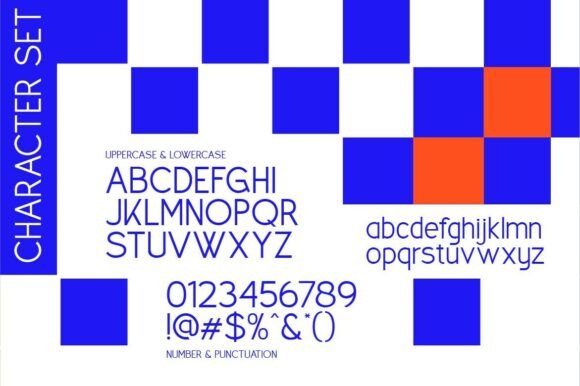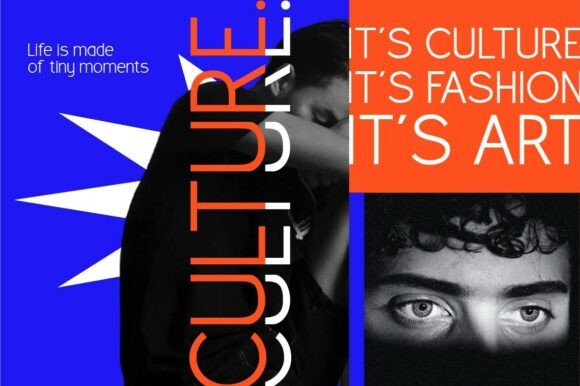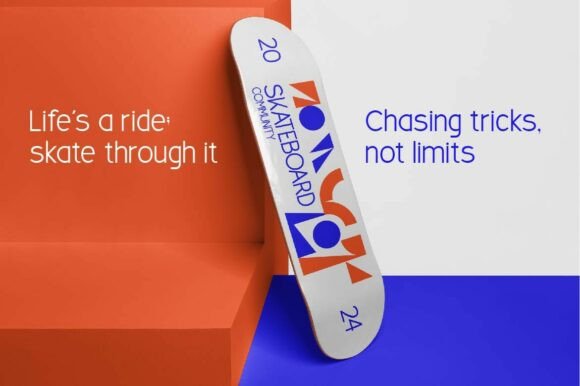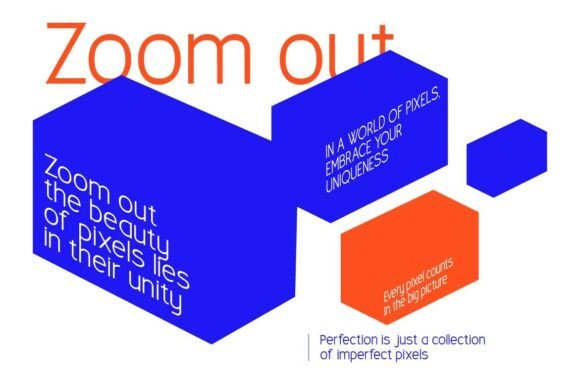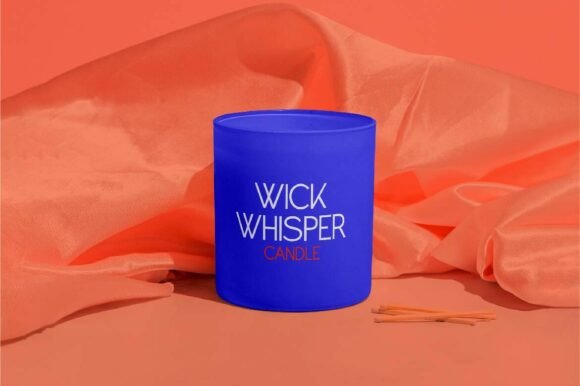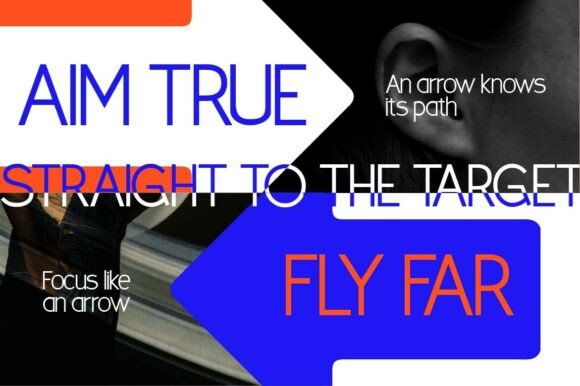
Introducing Groovern Font: The Epitome of Modern Sans-Serif Elegance
In the realm of typography, fonts play a pivotal role in conveying messages, evoking emotions, and establishing brand identities. Among the myriad of fonts available, Groovern stands out as a sleek and modern sans-serif display font that exudes a dynamic and stylish energy. Designed with a clean sans-serif structure and a contemporary feel, Groovern is poised to revolutionize the way designers and crafters approach their creative projects.
Design and Features of Groovern Font
Groovern’s design is characterized by its minimalist yet impactful letterform structure. The font boasts a clean sans-serif aesthetic, which lends it a modern and sophisticated appeal. This sleekness is not just visually pleasing but also highly versatile, making Groovern an excellent choice for a wide range of applications. Whether it’s for music or fashion branding aiming to make a stylish statement, social media graphics that need to capture attention instantly, or packaging designs looking for a modern twist, Groovern is the perfect fit.
Applications of Groovern Font
The versatility of Groovern font is one of its most compelling features. Here are some of the key areas where Groovern can make a significant impact:
- Music or Fashion Branding: For brands in the music or fashion industry, establishing a stylish and edgy identity is crucial. Groovern, with its sleek and modern design, helps these brands stand out by offering a fresh and contemporary look that resonates with their target audience.
- Social Media Graphics: In the fast-paced world of social media, grabbing the viewer’s attention is paramount. Groovern’s dynamic and eye-catching appearance makes it an ideal choice for social media graphics, ensuring that the message not only reaches but also engages the audience effectively.
- Packaging Designs: For products looking to stand out on crowded shelves, packaging design is critical. Groovern brings a modern and unique appeal to packaging, helping products to catch the eye and convey a sense of modernity and style.
- Website Headers and Editorial Designs: In digital and print media, the header of a website or the title of an editorial piece sets the tone for the content. Groovern’s sleek and modern flair makes it an excellent choice for website headers and editorial designs, adding a touch of sophistication and contemporary style.
Why Choose Groovern Font?
Choosing Groovern font for a project comes with numerous benefits. Here are some reasons why designers and crafters are gravitating towards Groovern:
- Versatility: Groovern’s design is versatile enough to be used across various platforms and mediums, from digital screens to print materials.
- Legibility: Despite its sleek and minimalist design, Groovern maintains high legibility, ensuring that messages are conveyed clearly and effectively.
- Uniqueness: In a sea of fonts, Groovern offers a unique aesthetic that can help brands and projects stand out from the competition.
- Modern Appeal: For projects aiming for a modern and stylish look, Groovern is an excellent choice, as it embodies the essence of contemporary design.
Groovern font represents a significant advancement in sans-serif typography, offering a blend of style, modernity, and versatility. Its dynamic and stylish energy, coupled with its clean and contemporary design, makes it an invaluable asset for designers and crafters working on a wide range of projects. Whether the goal is to establish a brand identity, create engaging social media content, design eye-catching packaging, or add a modern flair to website headers and editorial designs, Groovern is poised to meet and exceed expectations. By incorporating Groovern into their projects, designers and crafters can leverage its unique aesthetic to convey their message in a stylish, modern, and impactful way.